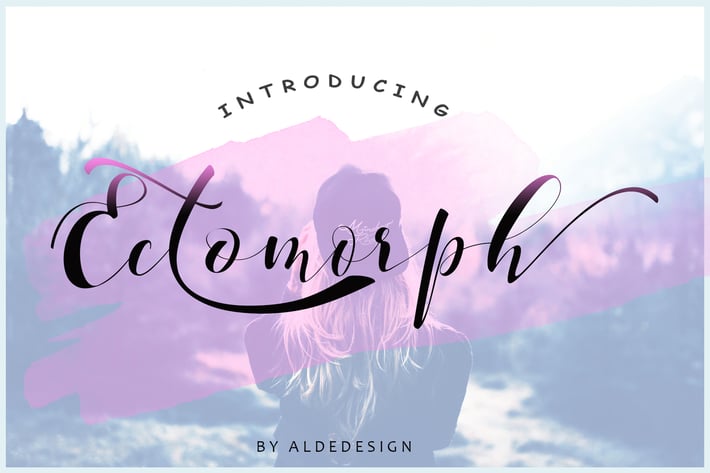
Ectomorph Script Font
Ectomorph Script Font is beautiful script made by depth love. Ectomorph with natural handwriting touch is suitable for you who needs a typeface for Headline, Apparel, Invitation, Branding, Wedding, Logo Design, Lettering, Logotype, Clothing, Poster, Magazine and other design project, t-shirt, letterhead, signage, lable, news, posters, badges etc.
Each Font Has:
Stylish handwritten style
Beautiful Swash (Ending tail)
Beautiful Titling (Beginning tail)
Special Ligatures